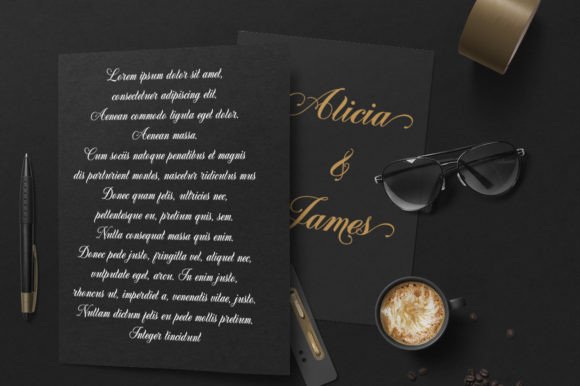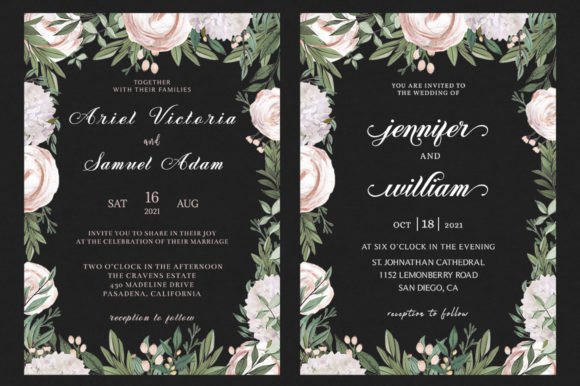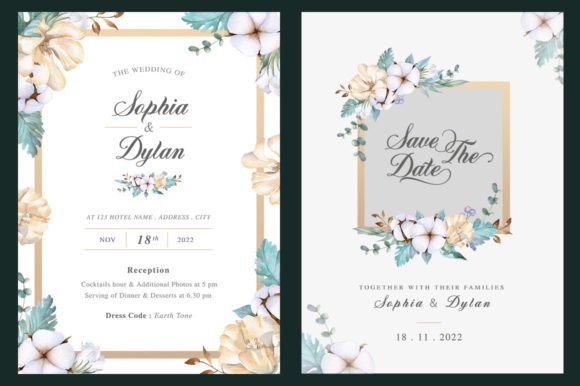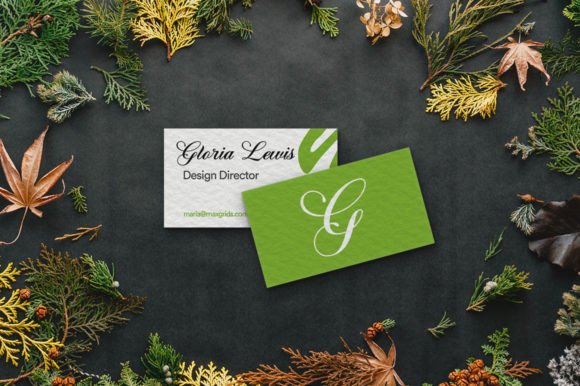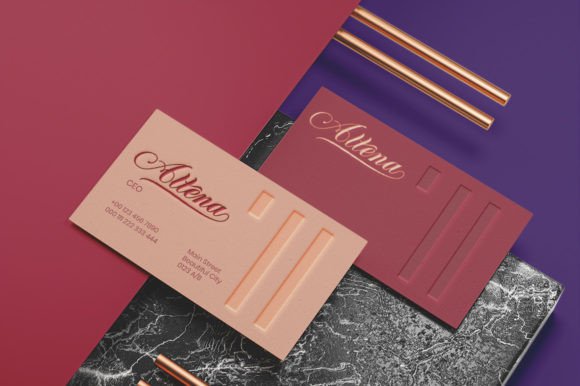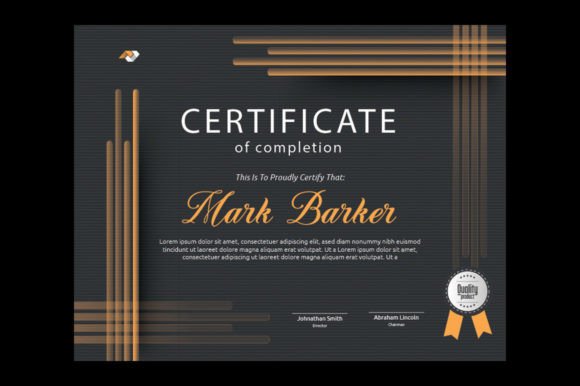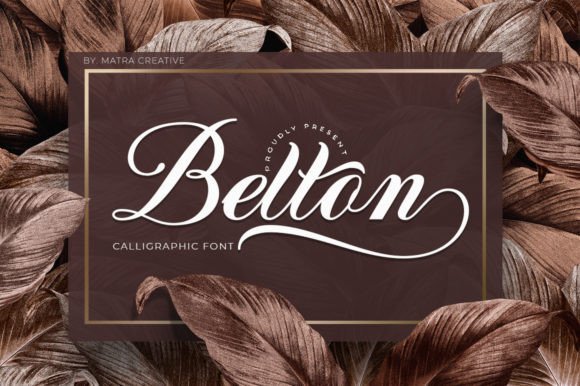
Discover the Elegance of Belton Font: A Designer’s New Best Friend
I still remember the time I was working on a wedding invitation project, and my client asked for a font that exuded luxury and sophistication. I scoured the internet, trying out font after font, but nothing seemed to fit the bill. That was until I stumbled upon Belton Font. With its elegant swashes and unique handwritten style, it was love at first sight! In this article, I’ll share my experience with Belton Font, its features, and how to make the most of it in your designs.
What Makes Belton Font Special?
Belton Font is a one-of-a-kind handwritten font that can instantly elevate your designs. Here are some of its standout features:
- ✨ Elegant swashes to add a touch of luxury
- ✅ Unique handwritten style that’s both modern and classic
- 💫 Perfect for a variety of design projects, from logos to wedding invitations
I’ve had the pleasure of working with Belton Font on several projects, and here’s my honest review:
- ✨ The elegant swashes that add a touch of sophistication to any design
- ✅ The font’s versatility – it can be used for logos, headings, t-shirts, and more
- 💫 The unique handwritten style that’s both modern and classic
- 🤔 Some users may find the font a bit tricky to pair with other fonts
- ⚠️ The font’s swashes can be a bit overpowering if not used judiciously
- Use the font’s OpenType features, such as swashes and stylistic alternates, to add elegance to your design
- Use the font’s stylistic alternates and swashes to add visual interest to your document
The Story Behind Belton Font
Belton Font was designed by a team of talented typographers who wanted to create a font that was both elegant and unique. The font’s design is inspired by traditional calligraphy and handwriting, with a modern twist. The result is a font that’s both sophisticated and approachable.
| Author | Matra Creative |
Q: What is Belton Font?
Belton Font is a unique handwritten font with elegant swashes and a sophisticated feel.
Q: What can I use Belton Font for?
Belton Font can be used for a variety of design projects, including logos, wedding invitations, headings, t-shirts, and more.
Q: Is Belton Font easy to use?